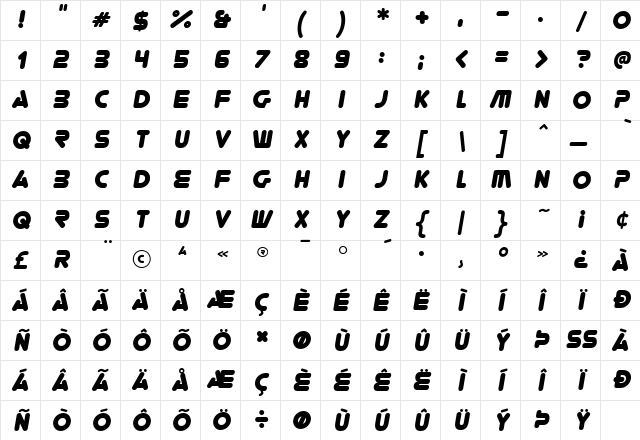
You're Gone Italic Free Font
You're Gone Italic
You're Gone Family
Design Context for You're Gone
You're Gone is a composed and adaptable typeface that performs quietly and consistently across a wide range of design contexts. The slanted form adds forward momentum and visual energy.